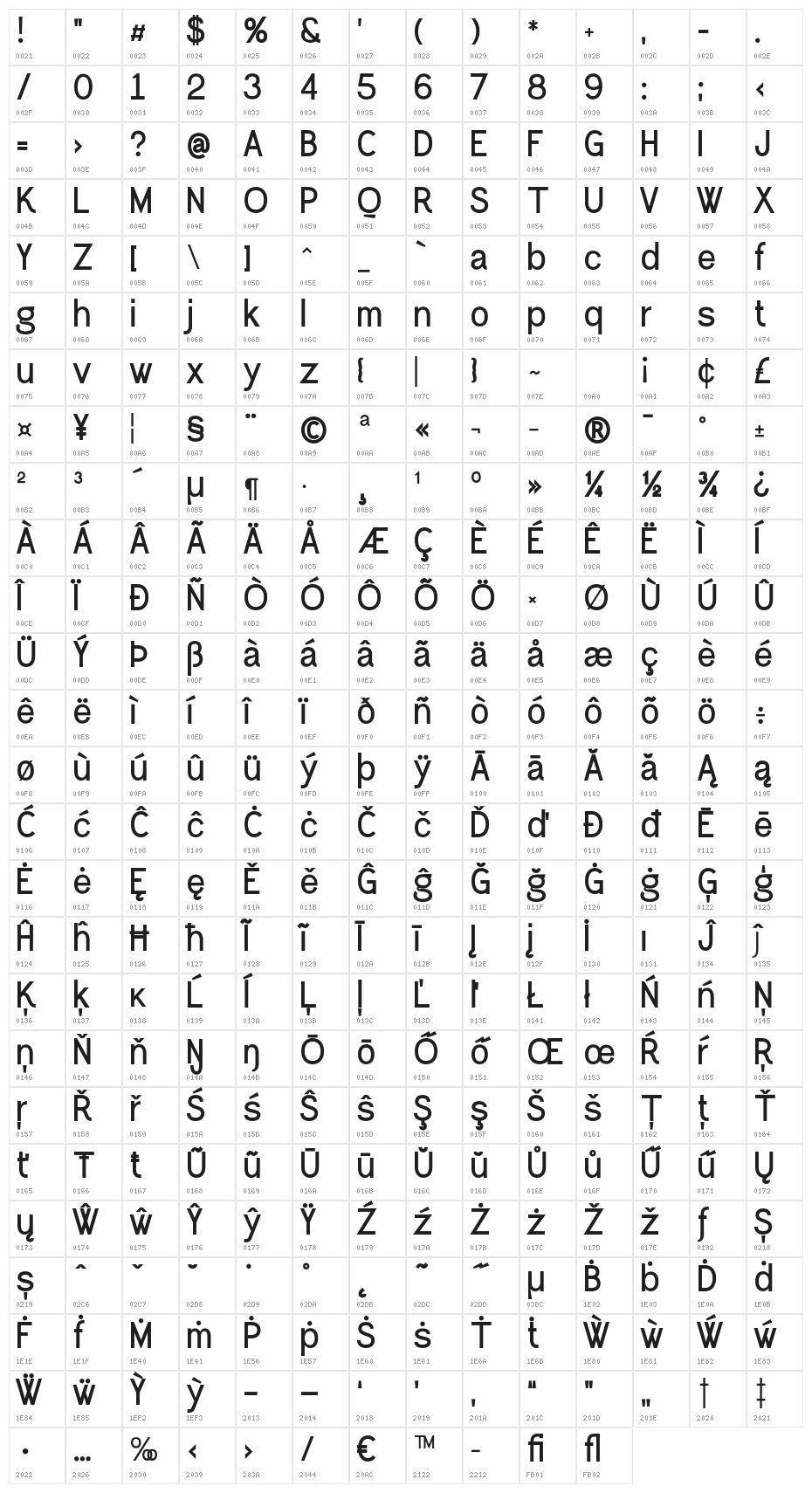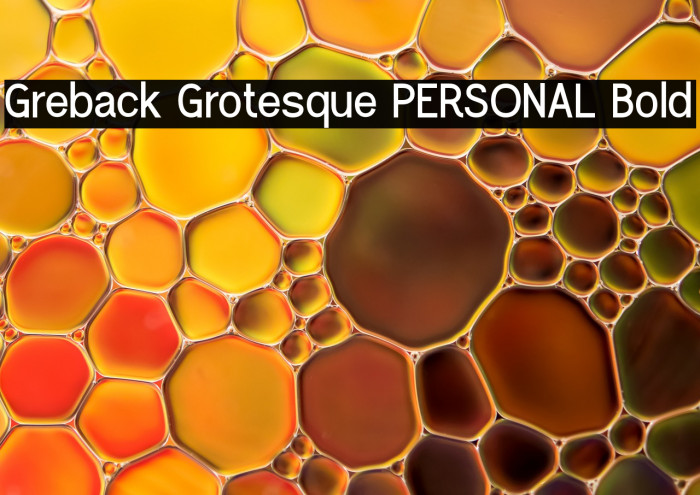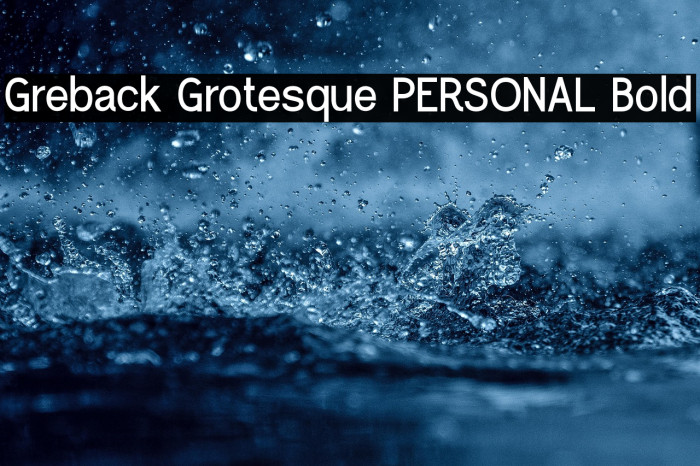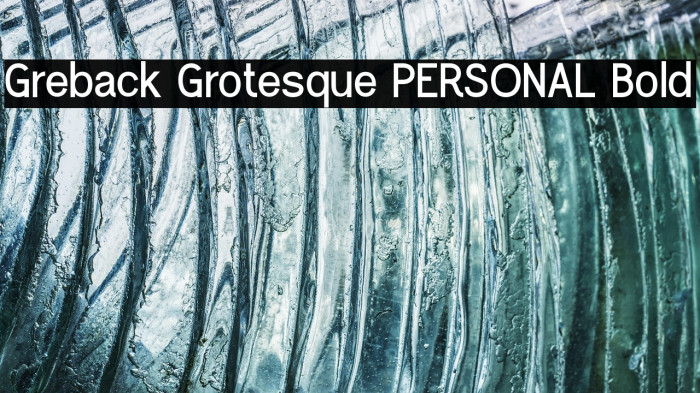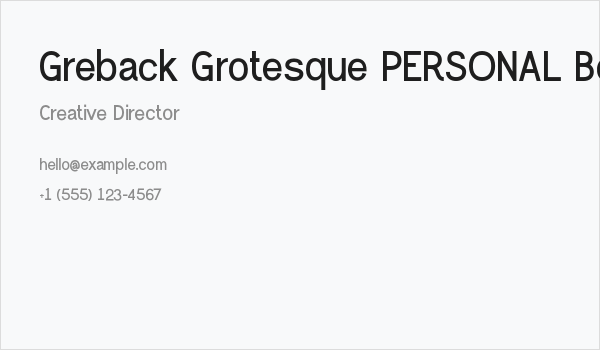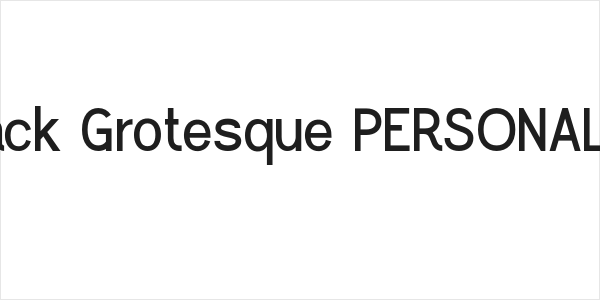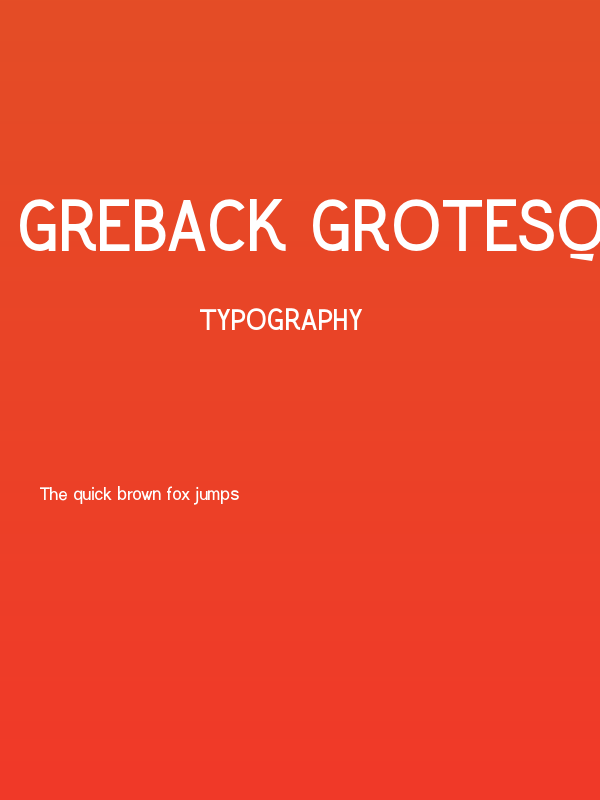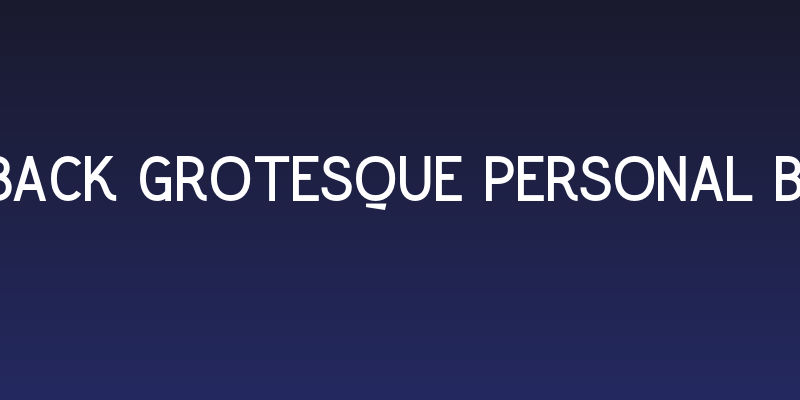
Greback Grotesque PERSONAL Bold Font
Greback Grotesque PERSONAL Bold Description
This typeface is a bold, sans-serif font characterized by its clean and modern appearance. The letters are evenly spaced with a consistent stroke width, providing a uniform and balanced look. The uppercase and lowercase letters are well-proportioned, making it versatile for various design applications. The numerals are clear and distinct, ensuring readability. Special characters are included, maintaining the font's cohesive style. Its simplicity and clarity make it suitable for both digital and print media.
Use CaseHeadlines, Logos, Web design
Proposed ProjectsIdeal for branding, advertising, web design, and editorial layouts.